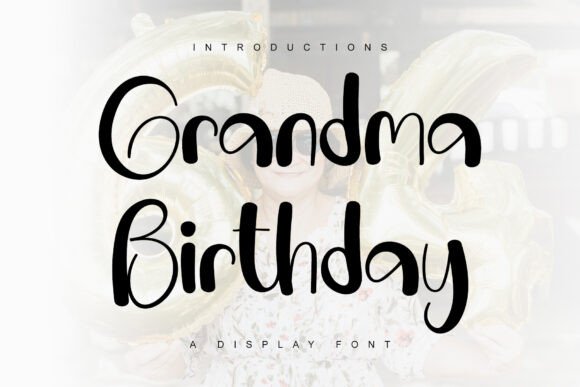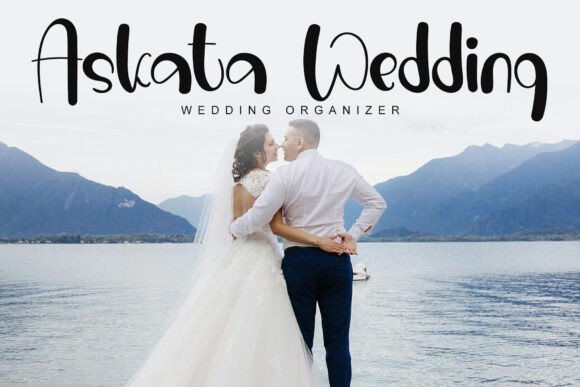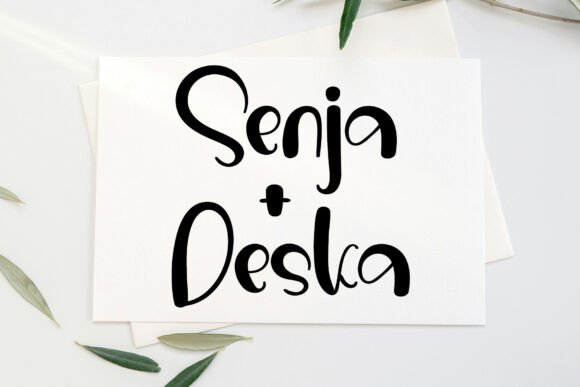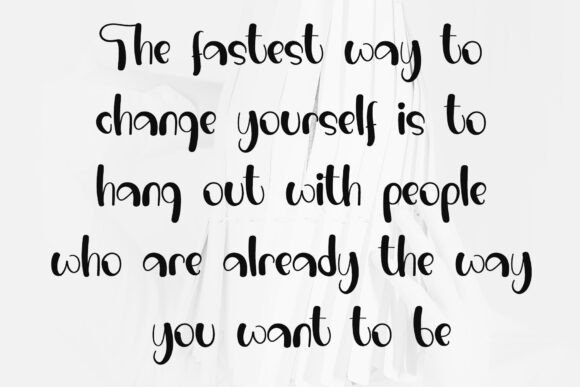
Grandma Birthday Font
About the Grandma Birthday Font
Add a touch of class to your work with the Grandma Birthday Font, a truly exceptional typeface. Grandma Birthday is a sweet and cursive handwritten font. This gentle font will look gorgeous on a variety of design ideas. It will add a joyful and romantic touch to each of your projects! Perfectly fit for branding, logo, wedding things, greeting cards, fashion, look book, marketing promotion, anytime you want to look fancy elegant but still casual.
Grandma Birthday Font’s delicate cursive style is ideal for headlines, short text blocks on invitations or greeting cards, and branding elements where a touch of handcrafted charm is desired. It excels in projects emphasizing warmth and personal connection, such as wedding stationery or product packaging for artisanal goods. However, its low x-height and connected script make it unsuitable for body text or UI applications requiring high readability.
For optimal visual balance, pair Grandma Birthday with a clean sans-serif like Montserrat for a contemporary feel, or a classic serif like Garamond for a more traditional aesthetic. A playful, slightly condensed sans-serif could also work well, injecting a touch of modern energy. Avoid pairing it with other highly decorative or script fonts, as this could create visual clutter.
The overall personality is friendly, romantic, and slightly nostalgic. It projects a sense of gentle elegance, making it suitable for brands that wish to communicate a handcrafted, personal touch.
Grandma Birthday Font Usage Examples
Grandma Birthday Font Example